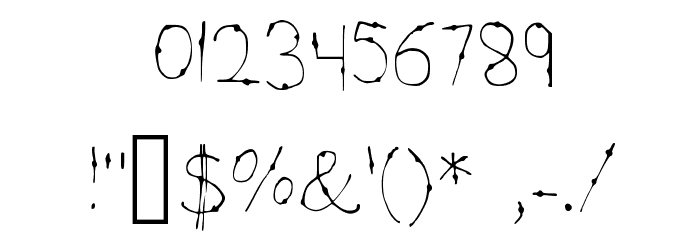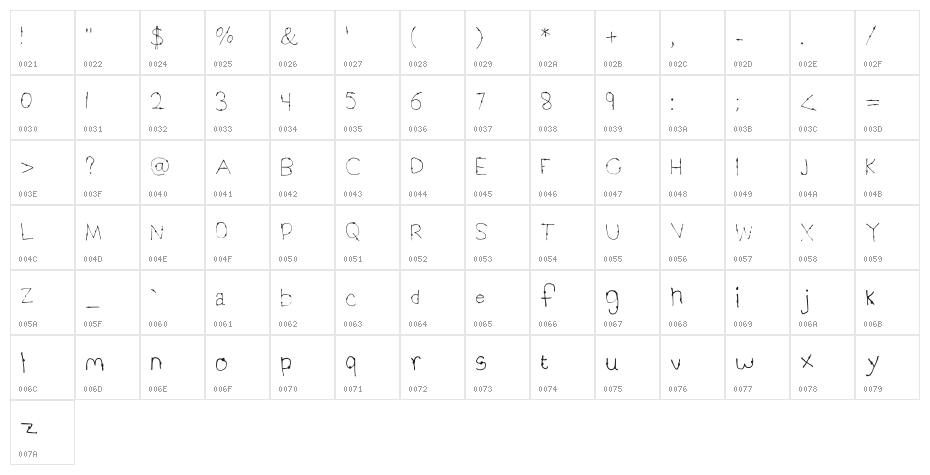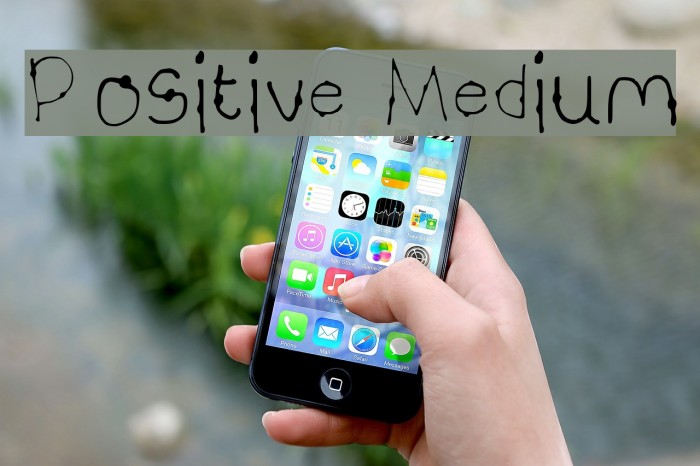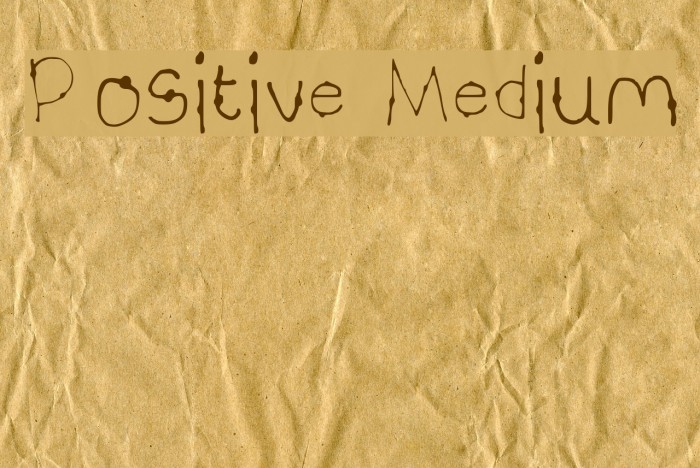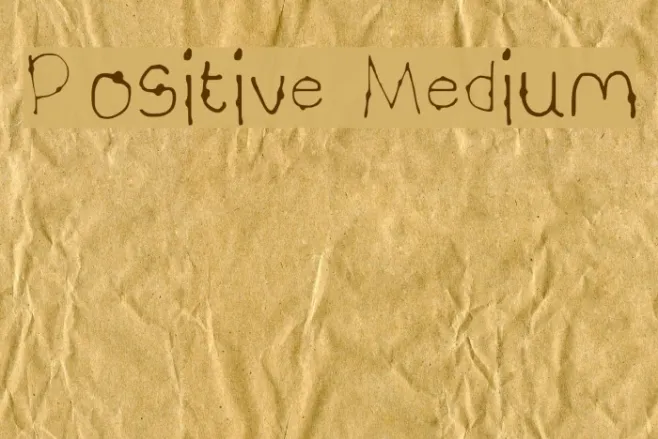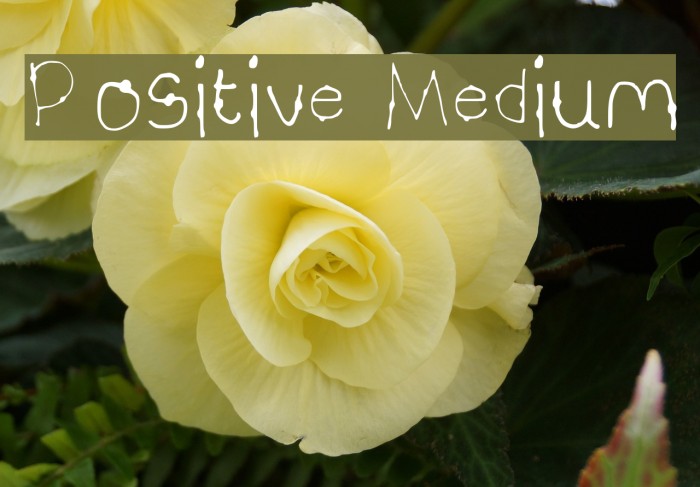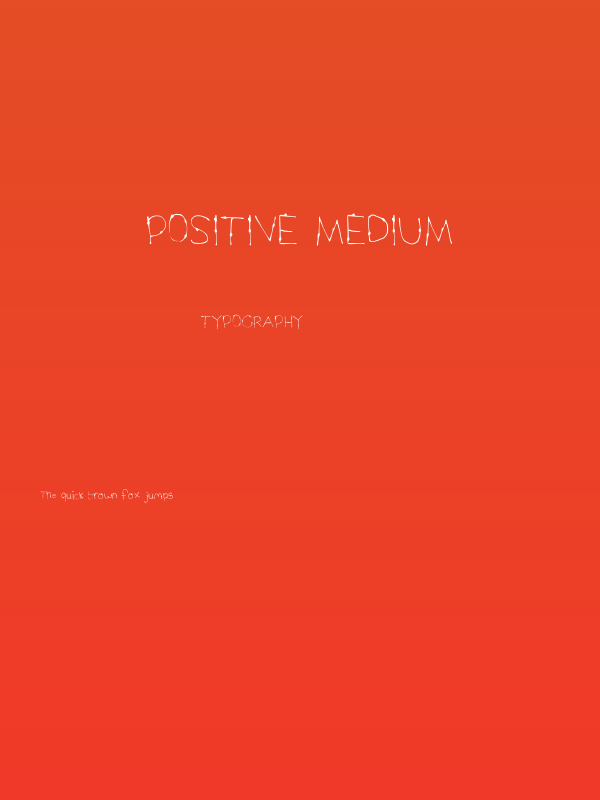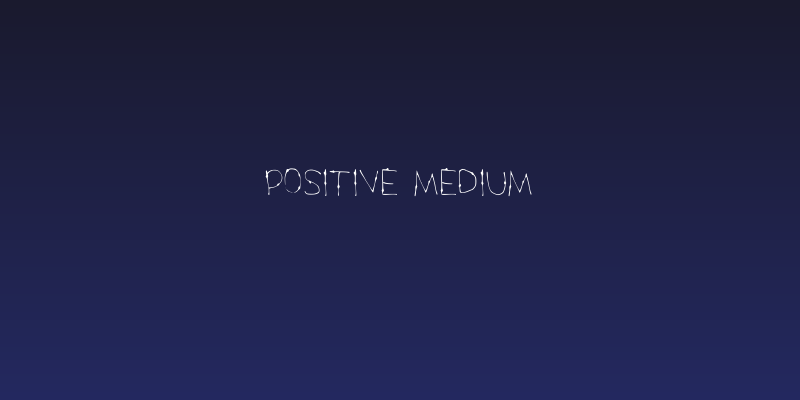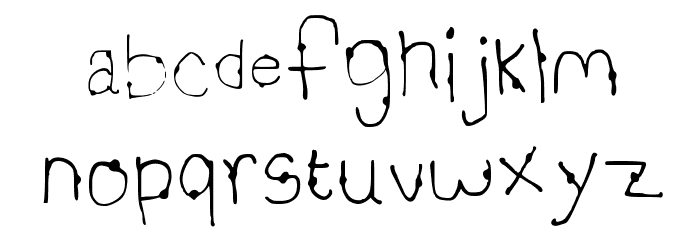
Positive Medium Font
Positive Medium Description
This font features a unique, hand-drawn style that gives it a distinct, organic appearance. The characters are irregular and slightly rough around the edges, creating a casual and informal look. The strokes vary in thickness, adding to the font's dynamic and lively feel. It captures a sense of spontaneity and creativity, making it ideal for projects that require a personal touch. The font maintains legibility despite its quirky design, with each letterform clearly distinguishable. Its playful nature makes it suitable for artistic and creative applications.
| Use Case | Logos, Creative projects, Artistic designs |
| Proposed Projects | Ideal for greeting cards, children's books, creative posters, and artistic branding. |